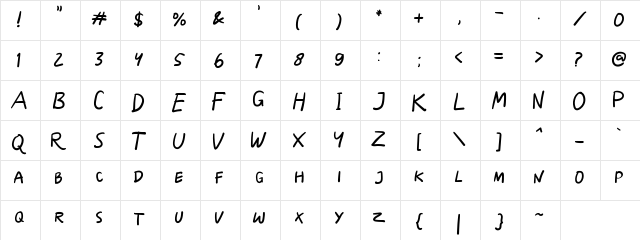
Skizzle Regular Font Preview
Skizzle Regular
Skizzle Regular Font Details
| Foundry | Letterhend Studio |
| Designer | Letterhend Studio |
Design Context for Skizzle Typeface
Skizzle is a composed and adaptable typeface that performs quietly and consistently across a wide range of design contexts.